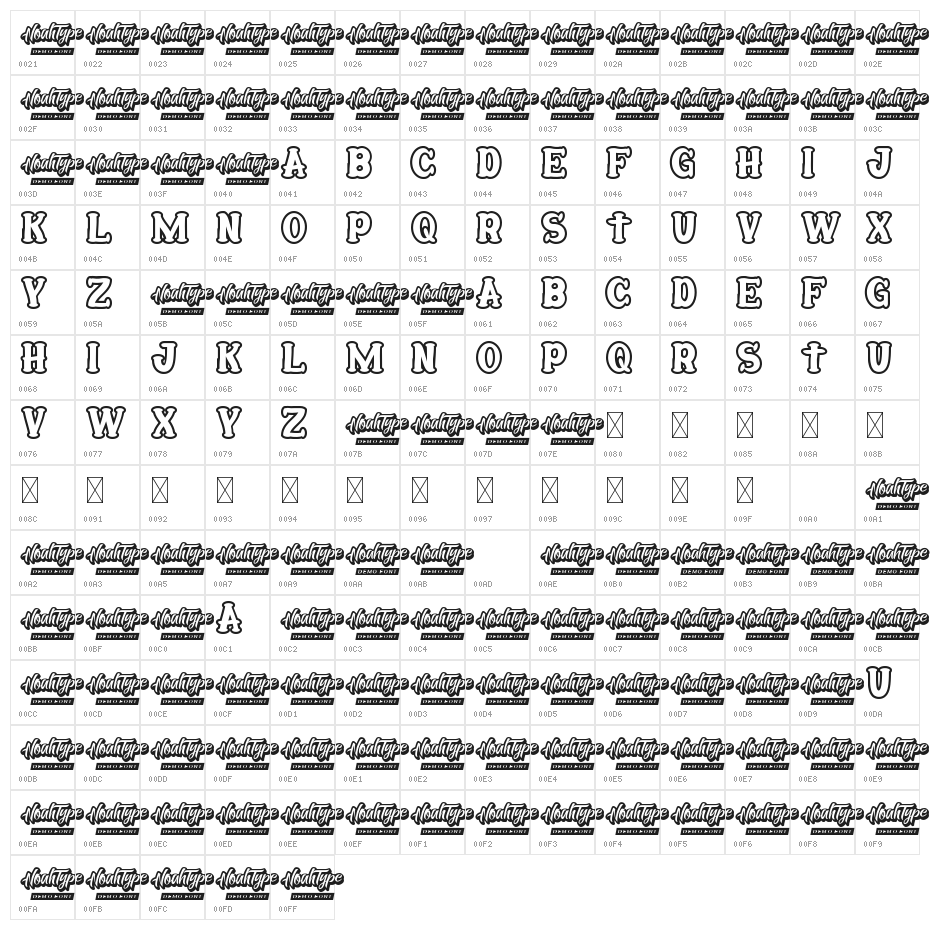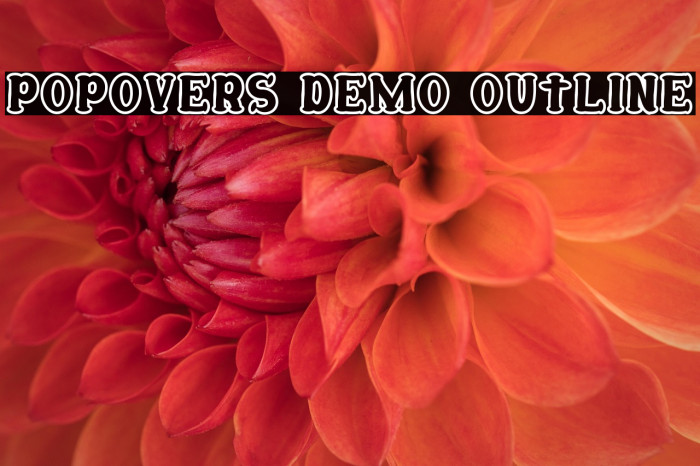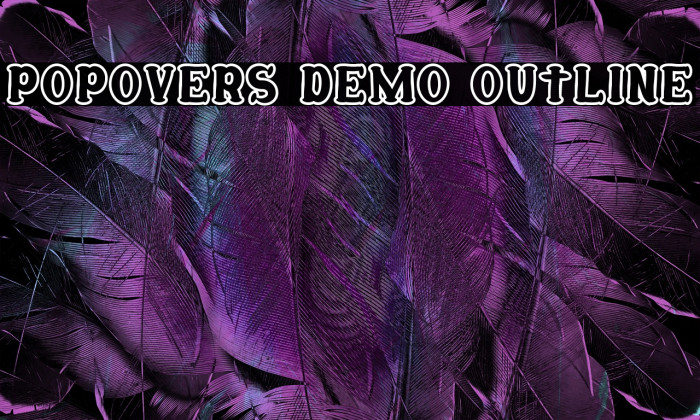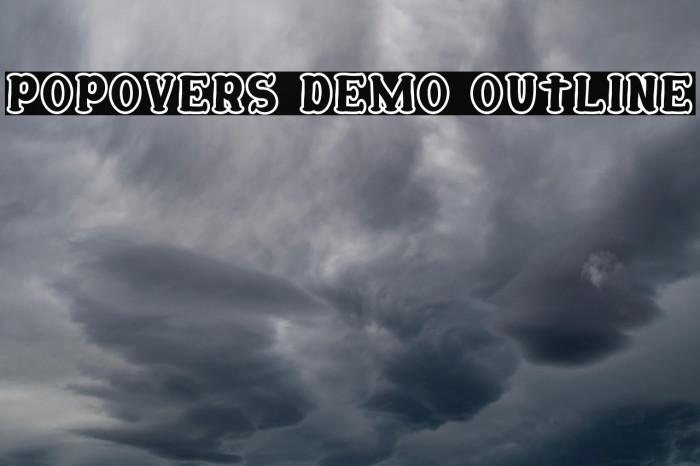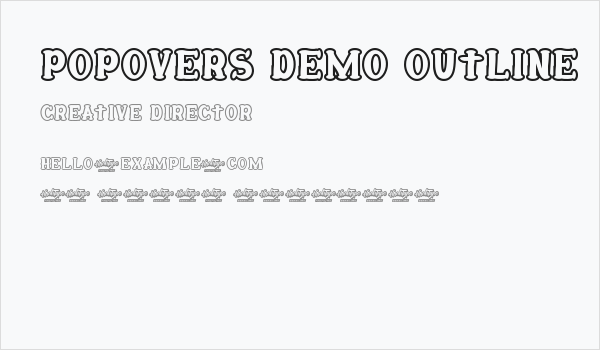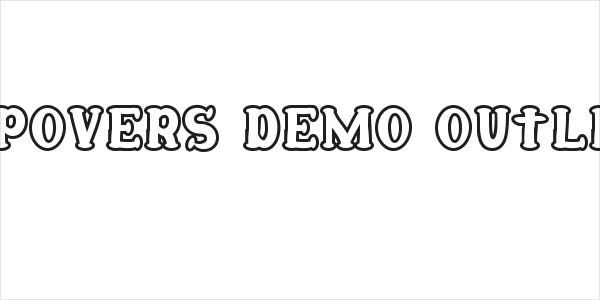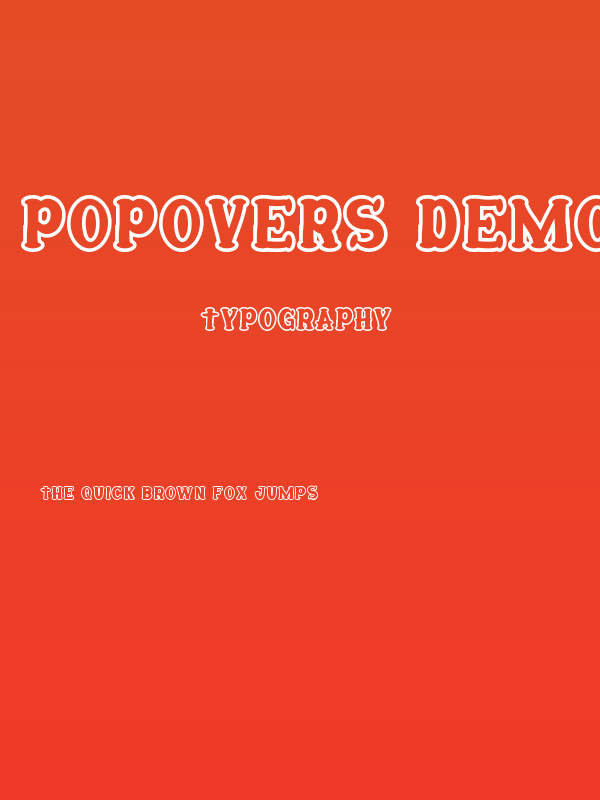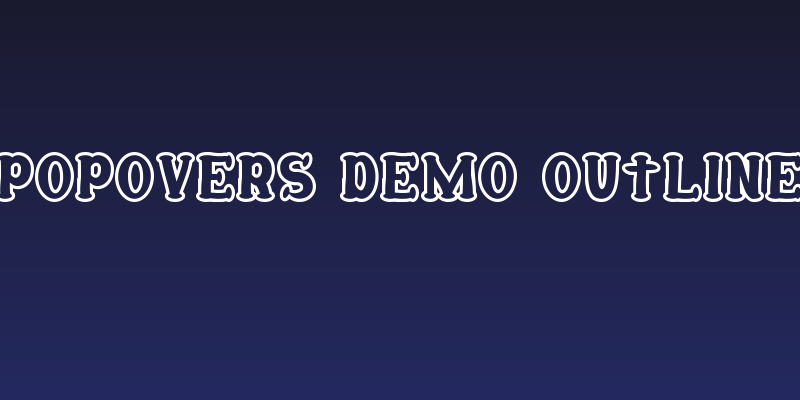
Popovers Demo Outline Font
This font features a bold, playful outline style with a distinct retro vibe. Each character is outlined, giving it a unique, eye-catching appearance that stands out. The letters are uppercase and have a consistent, rounded shape that adds to the font's approachable and friendly feel. The spacing between characters is balanced, ensuring readability while maintaining its decorative appeal. This style is reminiscent of vintage signage or comic book lettering, making it ideal for projects that require a fun and nostalgic touch.
| Proposed Projects | Ideal for retro-themed posters, comic book titles, playful branding, and eye-catching headlines. |